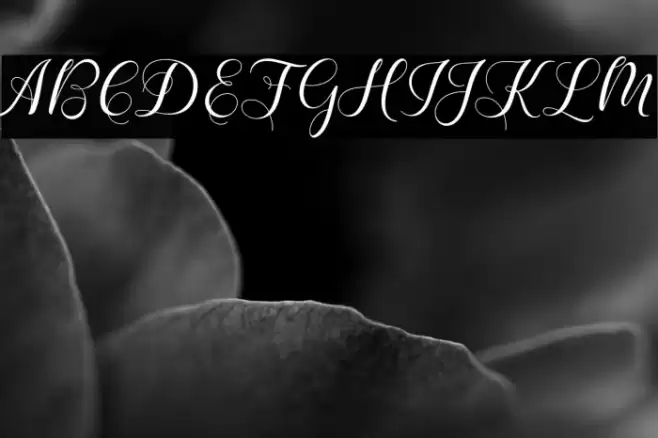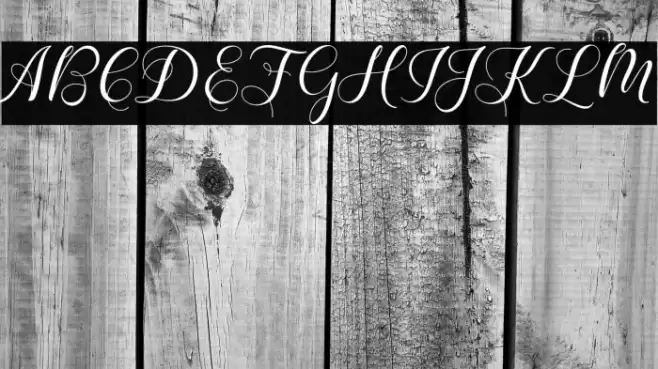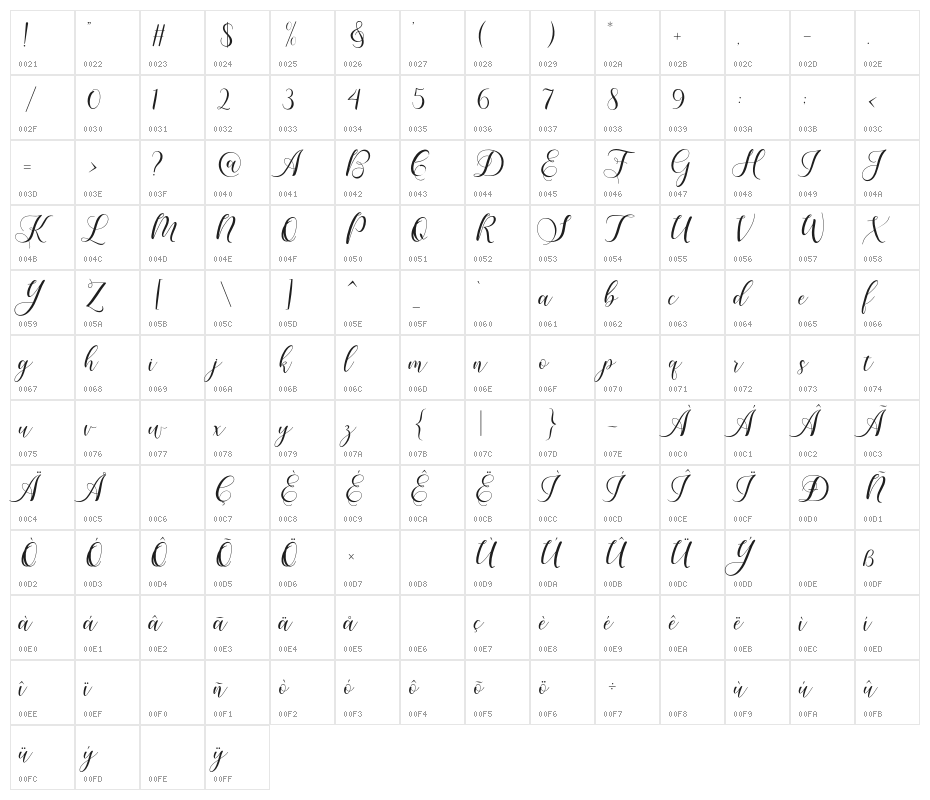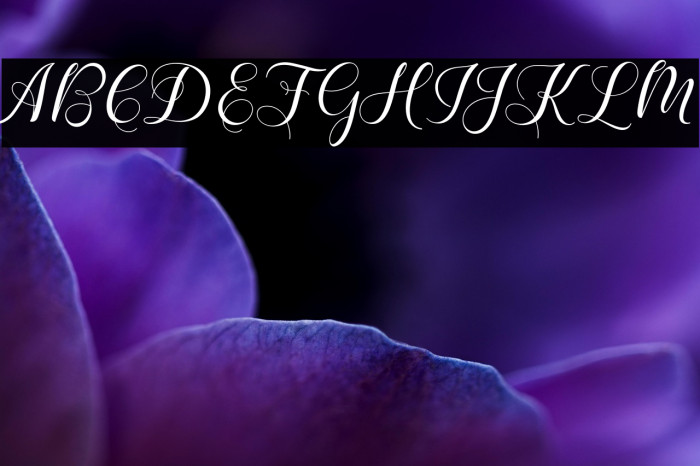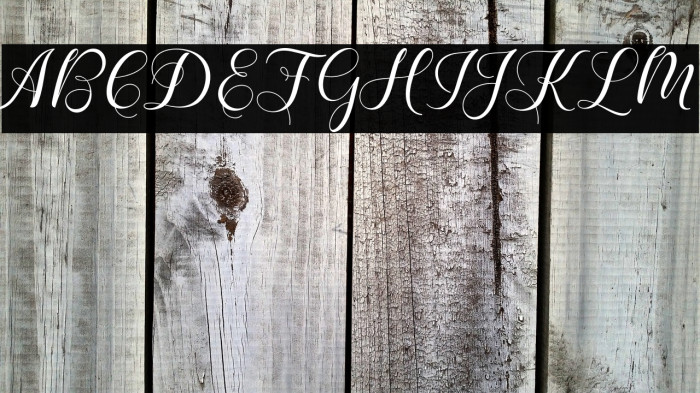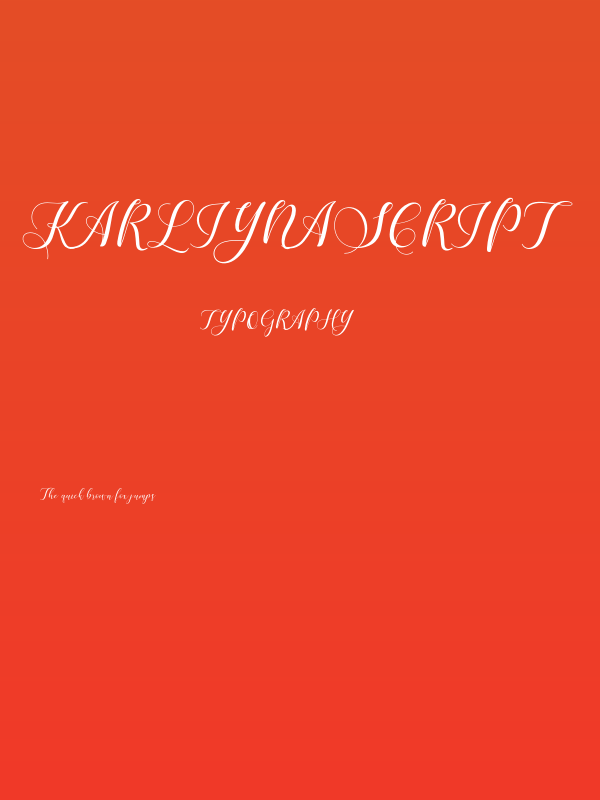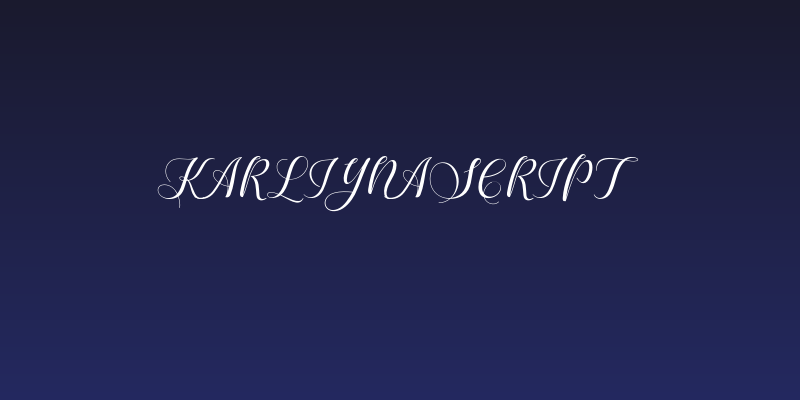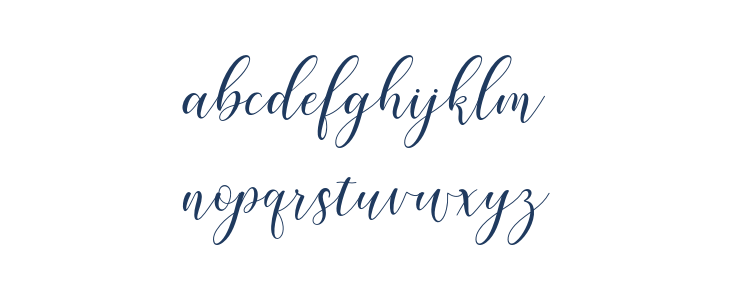
KarliynaScript Font
KarliynaScript Description
This elegant script font features graceful, flowing lines and a sophisticated style. The uppercase letters are adorned with delicate flourishes, adding a touch of luxury and refinement. The lowercase letters maintain a consistent flow, with smooth curves and a slight slant, enhancing the font's fluidity. The numerals are stylish and complement the overall aesthetic, while the special characters are crafted with the same attention to detail. This font exudes a sense of elegance and is perfect for projects that require a touch of class and sophistication.
An elegant script font with graceful, flowing lines and sophisticated flourishes from Uncategorized fonts.
- Proposed Projects: Ideal for wedding invitations, luxury branding, elegant stationery, and high-end product packaging.
- Overall Style: Elegant
- Use Case: Logos, Invitations, Branding